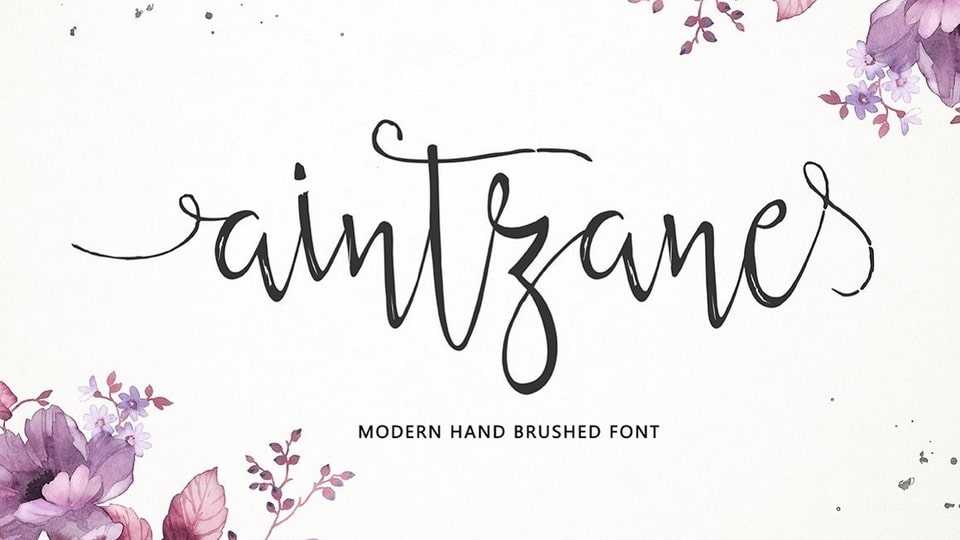
Download Aintzane font, a stylish and cool handwritten brush typeface. It looks stunning on every other design which needs a charming handwritten touch.